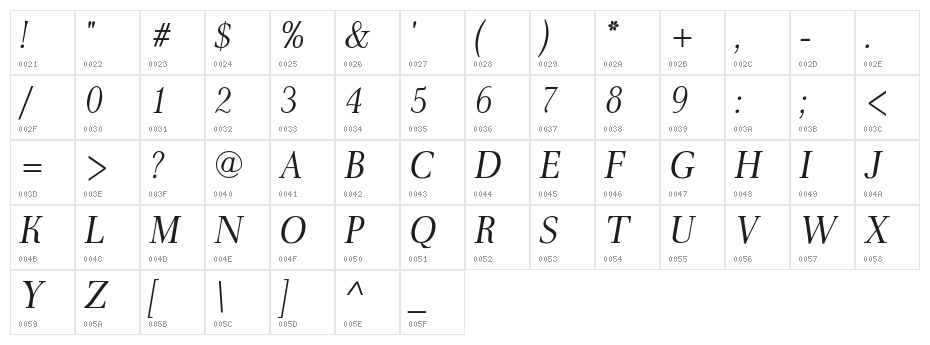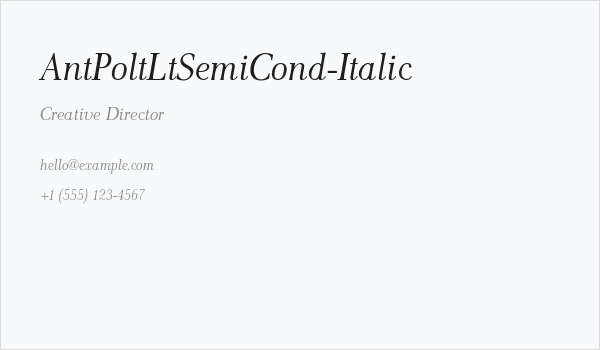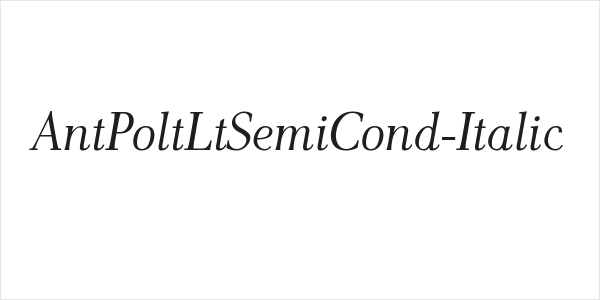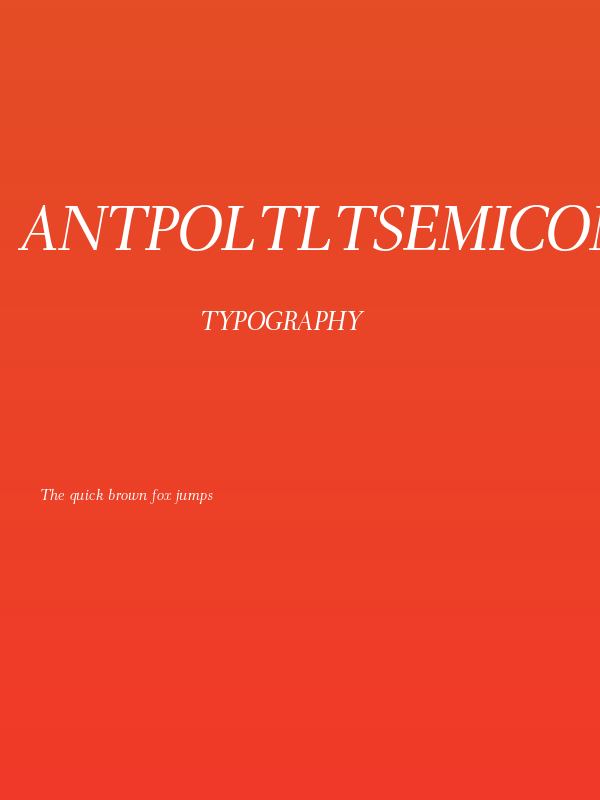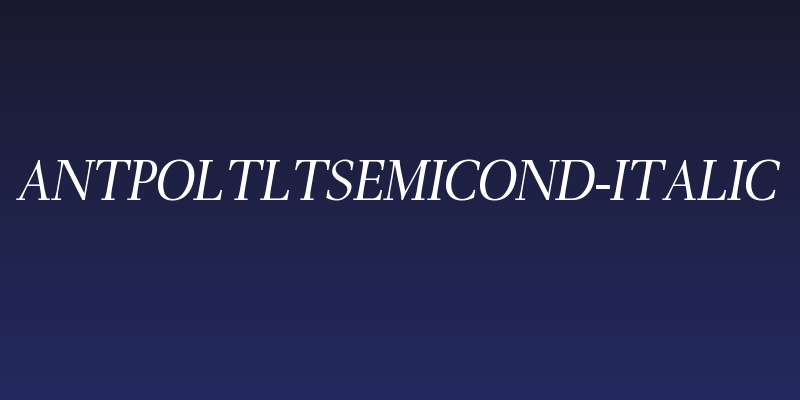
AntPoltLtSemiCond-Italic Font
AntPoltLtSemiCond-Italic Description
This font features a classic serif style with elegant, flowing lines and a slight slant, giving it an italic appearance. The characters are semi-condensed, allowing for a compact yet readable text. The uppercase letters are tall and stately, while the lowercase letters maintain a consistent rhythm with smooth curves and sharp serifs. The numerals are proportional, aligning well with the overall design. Special characters are crafted with the same attention to detail, ensuring a cohesive look across all glyphs. The font's refined aesthetic makes it suitable for formal and sophisticated applications.
| Proposed Projects | Ideal for use in editorial design, book covers, formal invitations, and branding materials that require a touch of sophistication. |